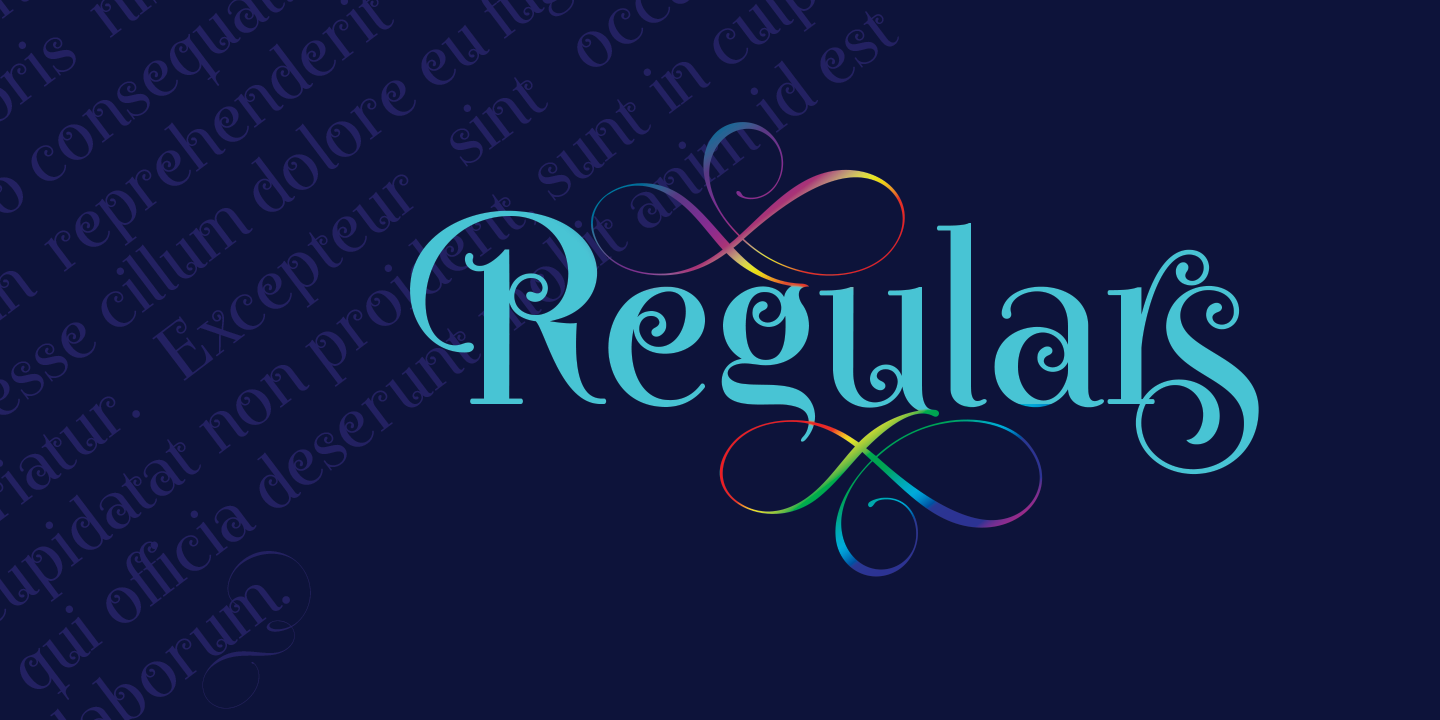
Searching for a refined, elegant typeface that blends classic form with contemporary sophistication? Novelia Pro Font Free Download is the ideal choice for editorial layouts, branding, packaging, and formal invitations. With its high-contrast strokes and graceful curves, this font adds a timeless, high-end aesthetic to any project.
Whether you're designing a luxury magazine, a boutique logo, or a refined website, Novelia Pro Font Free Download will elevate your visual identity with elegance and style.